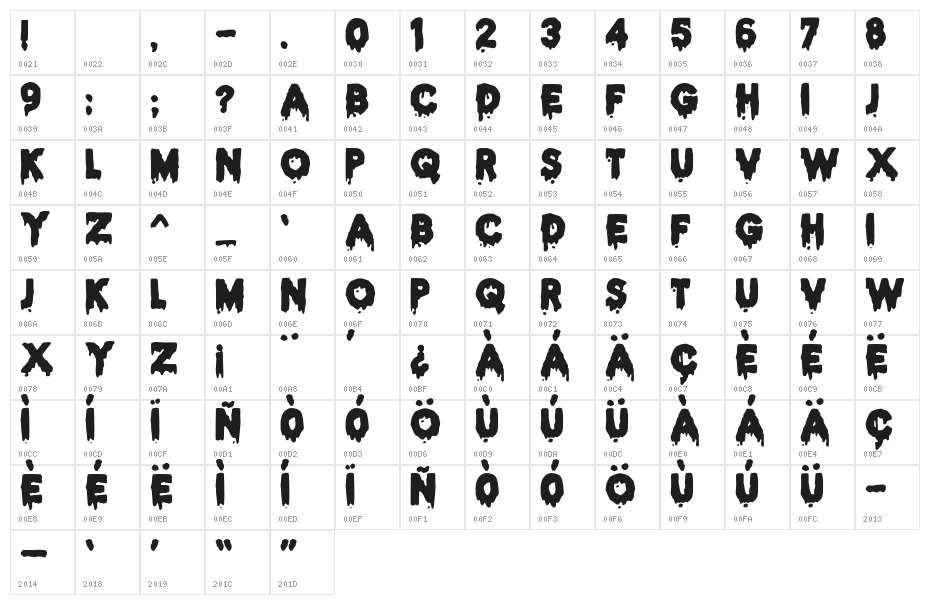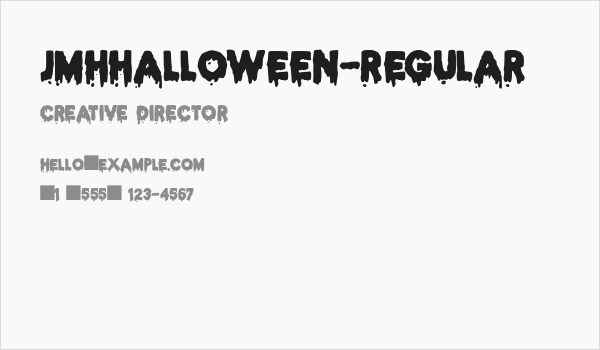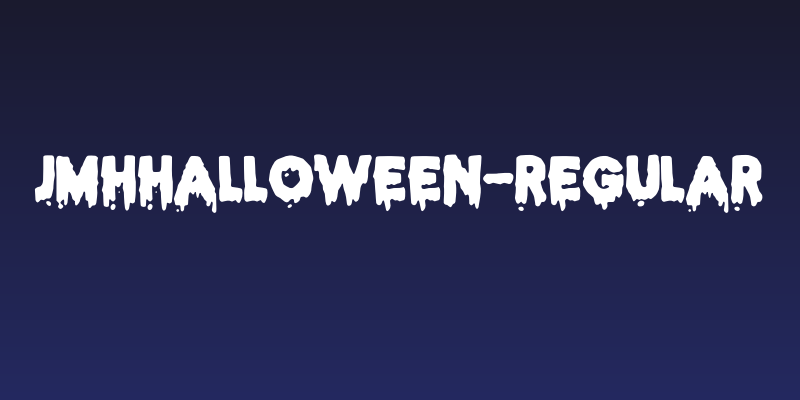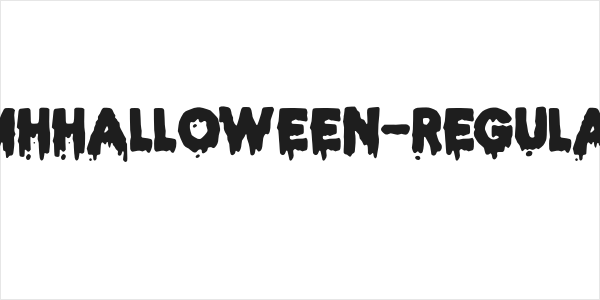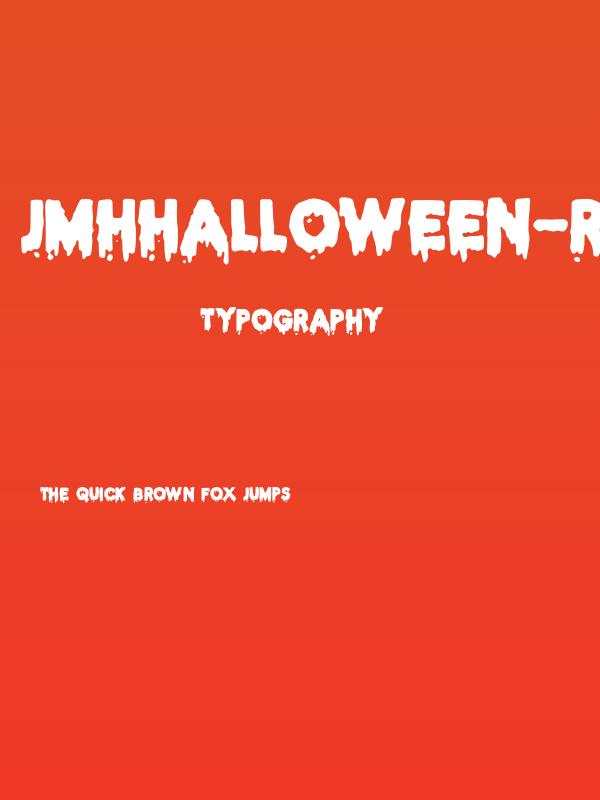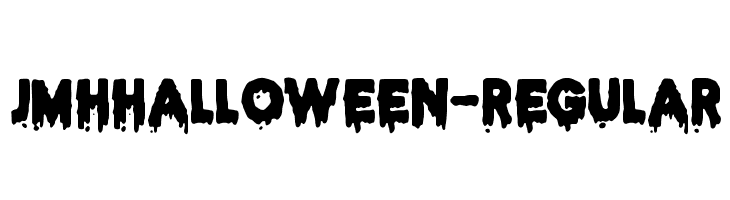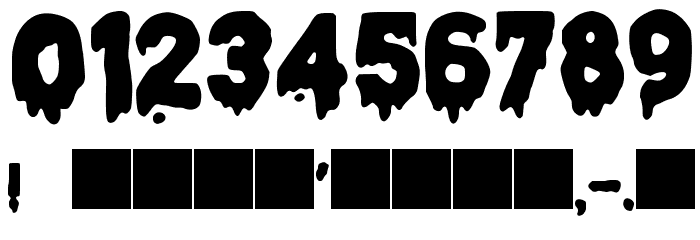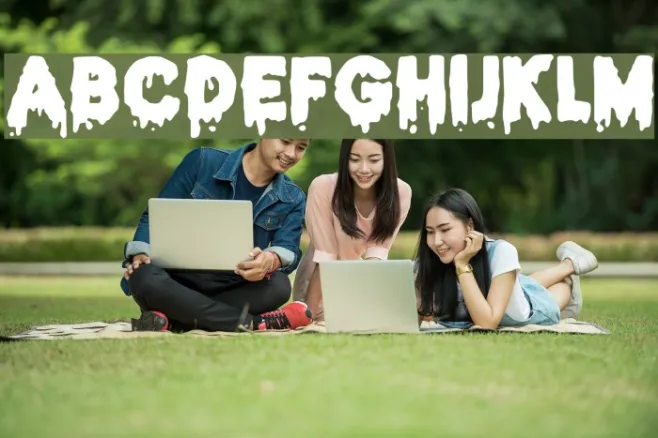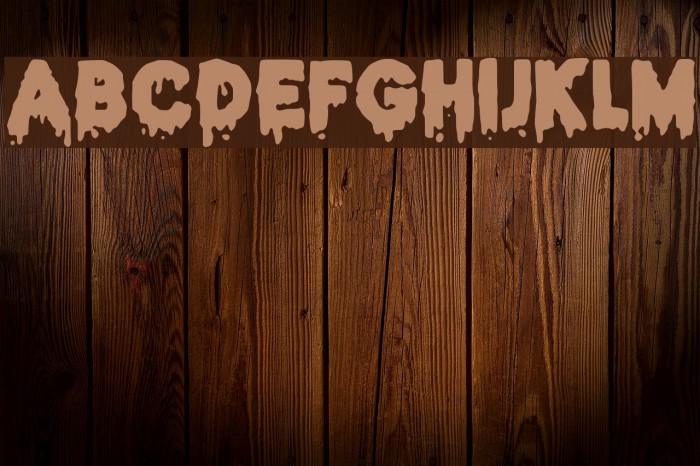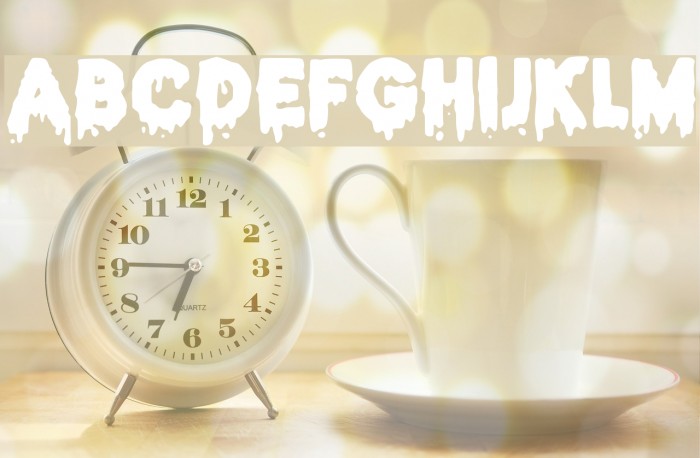
JMHHALLOWEEN-Regular Font
JMHHALLOWEEN-Regular Description
This font features a spooky, dripping design that evokes a sense of horror and mystery, perfect for Halloween-themed projects. The characters are bold and have a unique, irregular shape that mimics the appearance of melting or dripping liquid. This style is particularly eye-catching and can add a dramatic flair to any design. The uppercase and lowercase letters maintain a consistent theme, with each character appearing as if it is slowly dissolving. The numbers and special characters follow the same aesthetic, ensuring a cohesive look across all text elements. This font is ideal for creating a chilling atmosphere in posters, invitations, or any creative work that requires a touch of the macabre.
| Proposed Projects | Ideal for Halloween posters, horror movie titles, themed invitations, and spooky event flyers. |